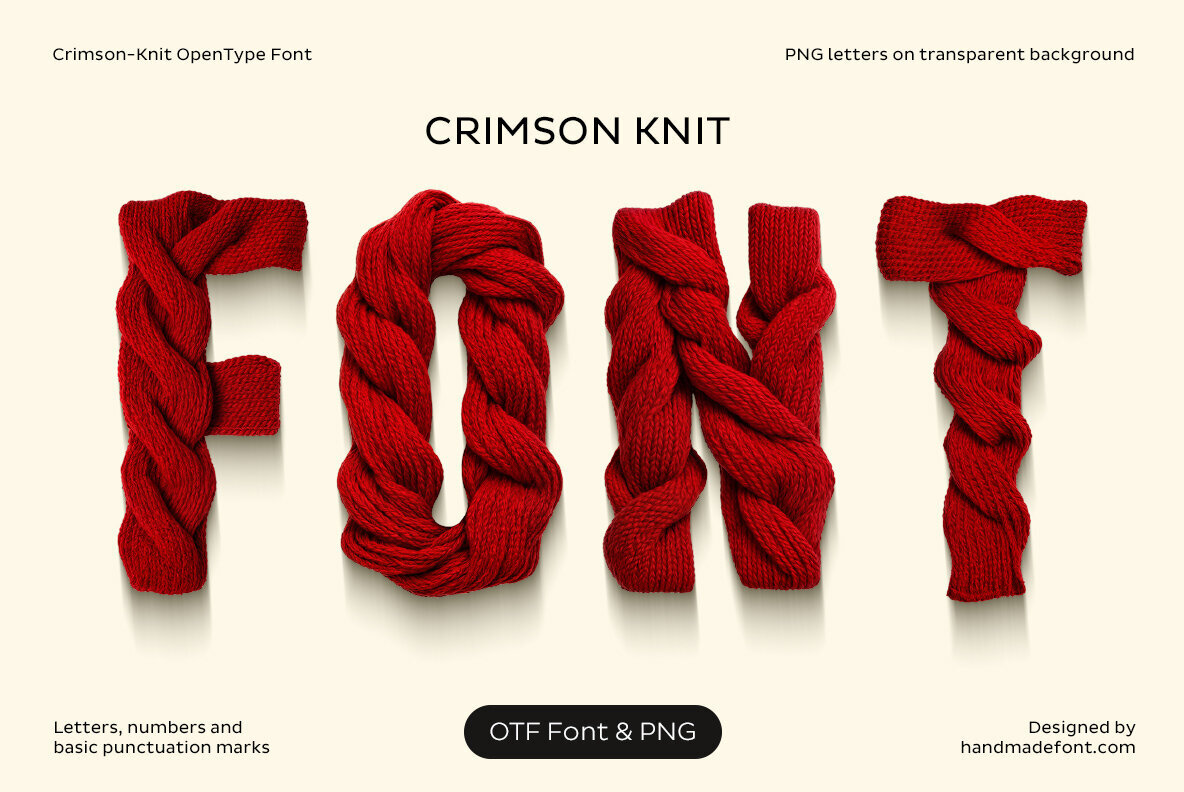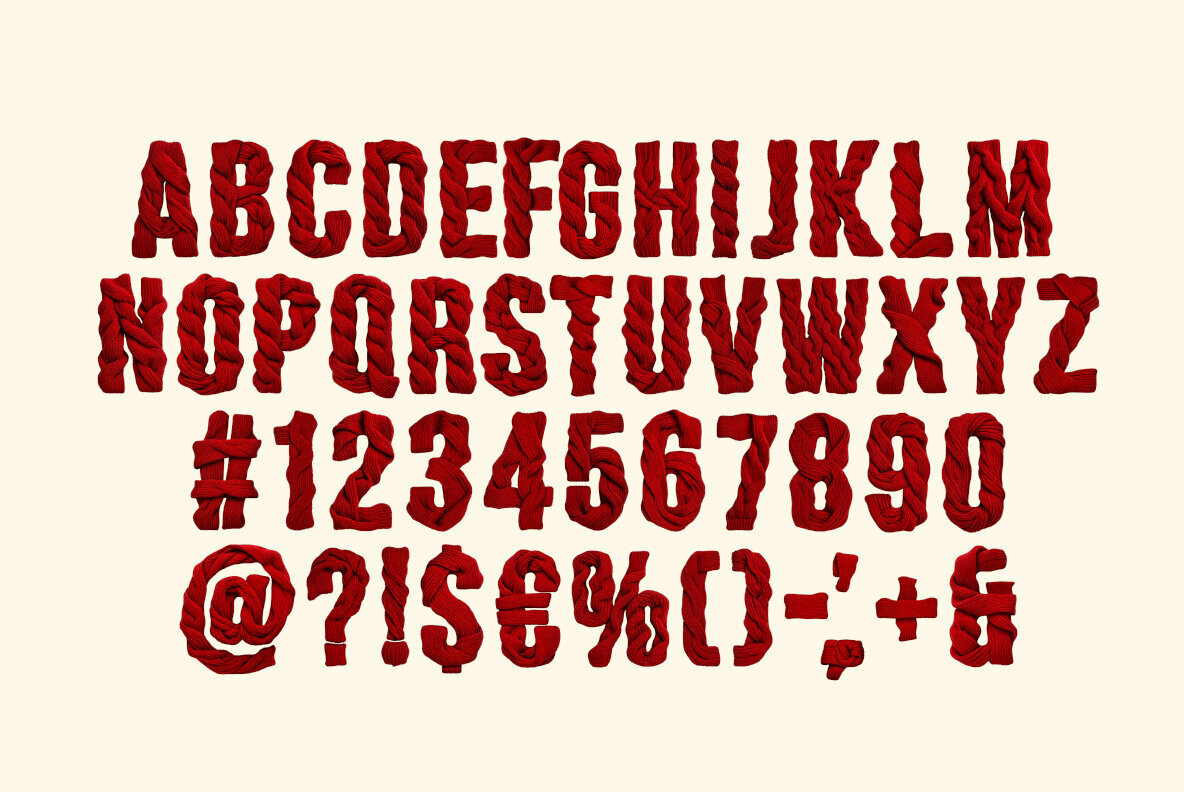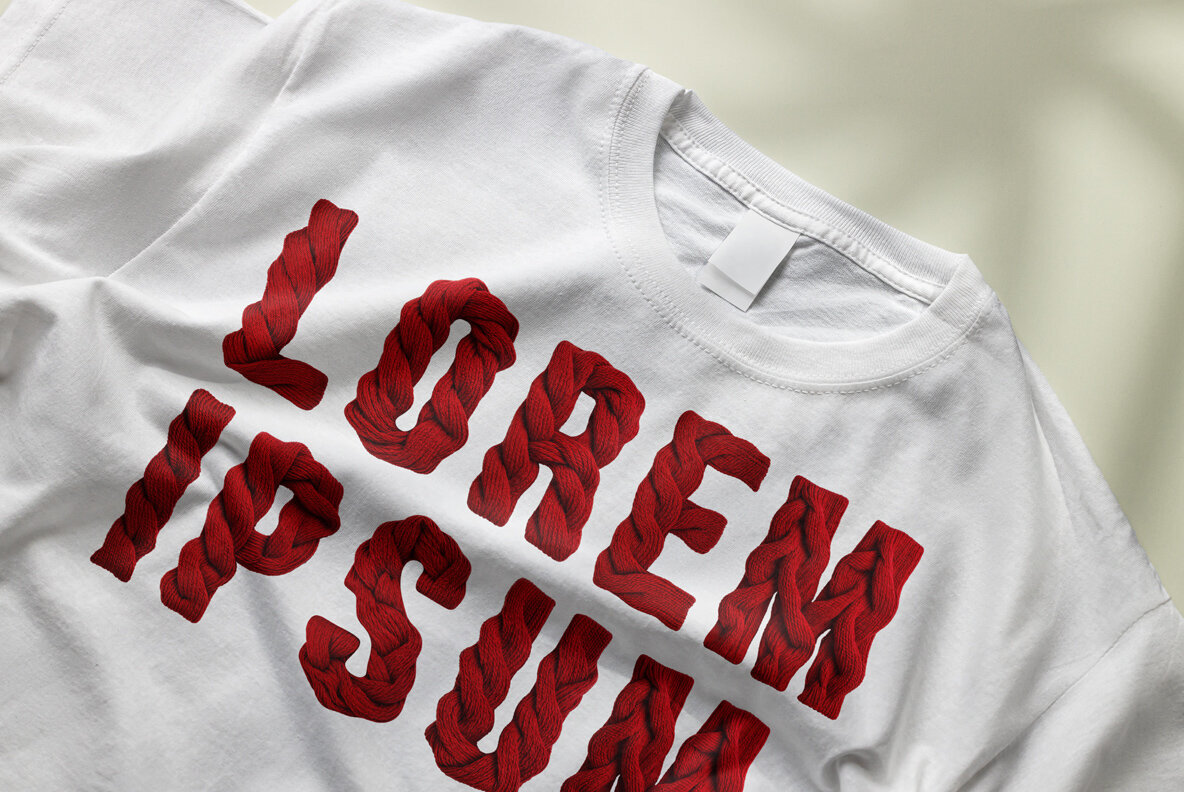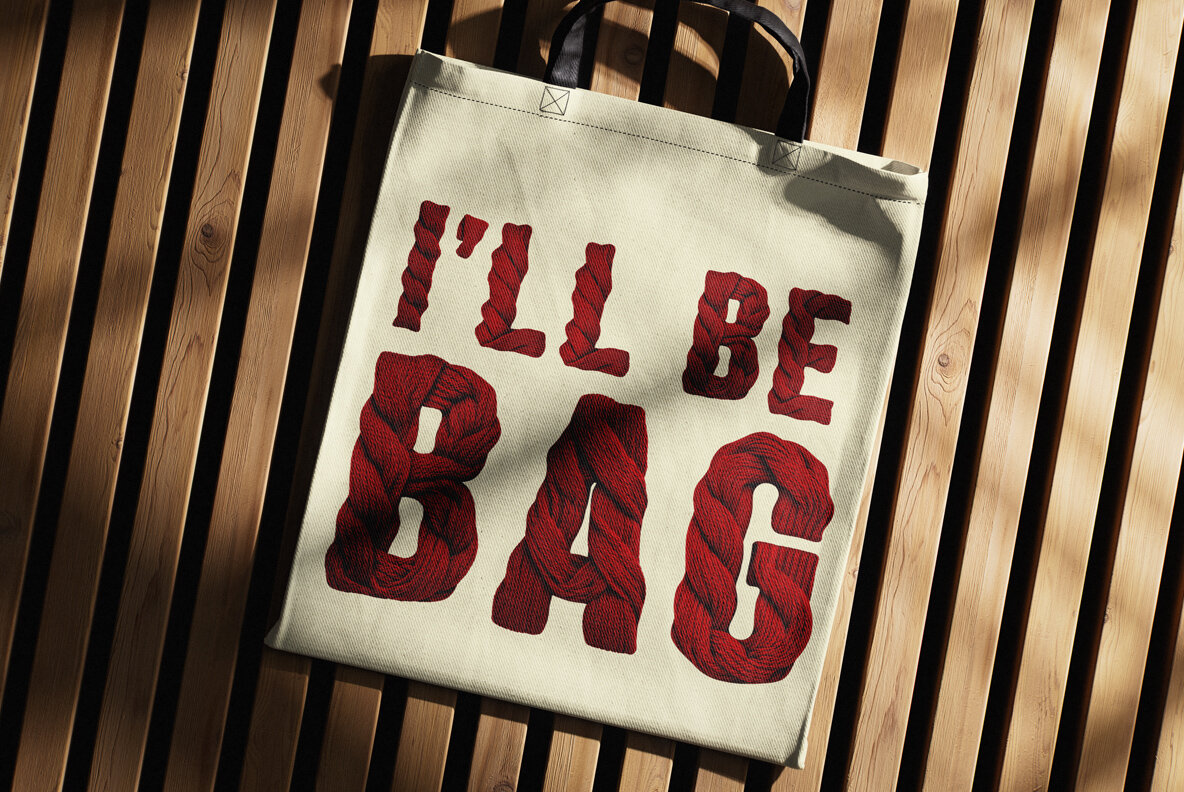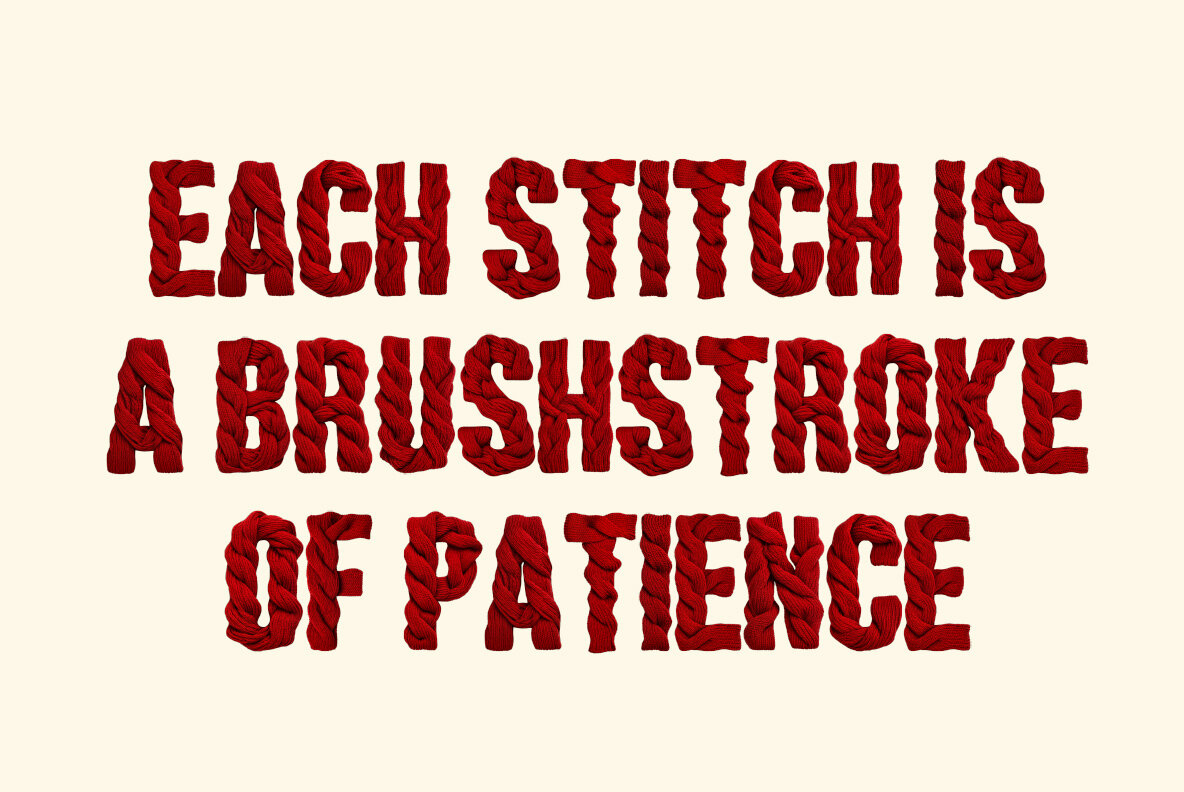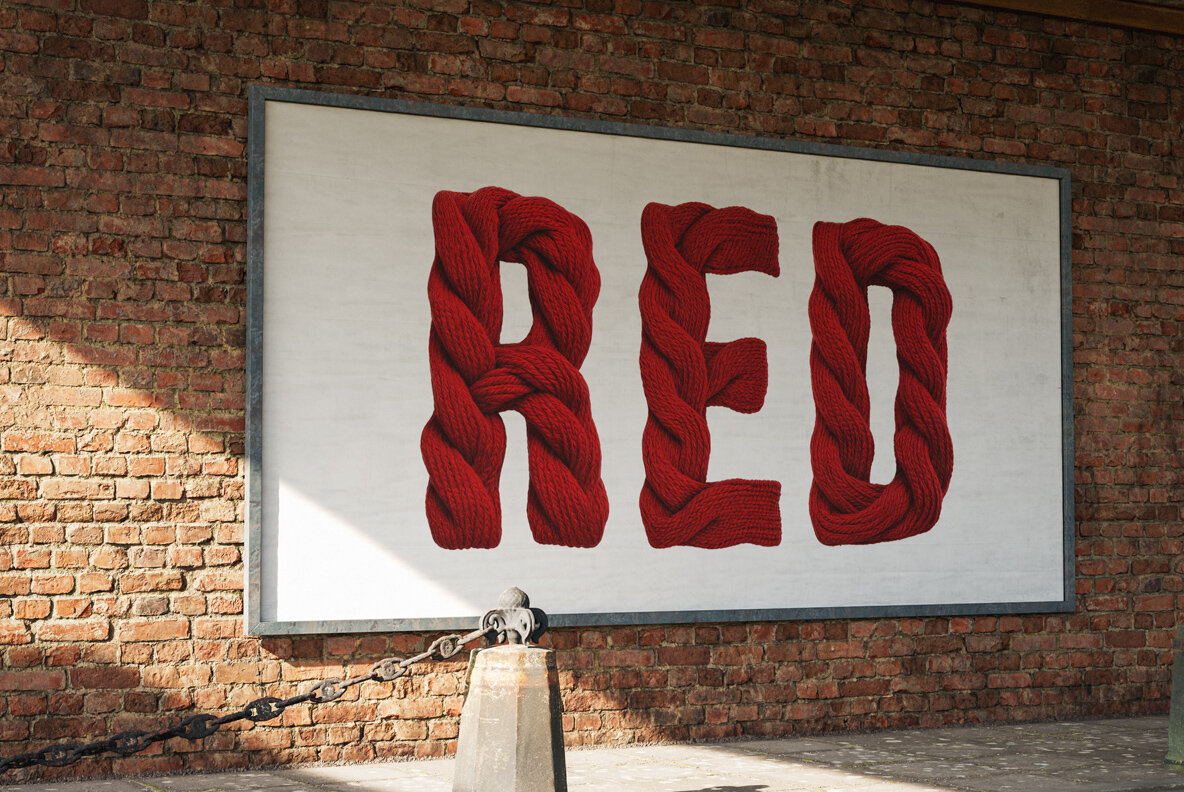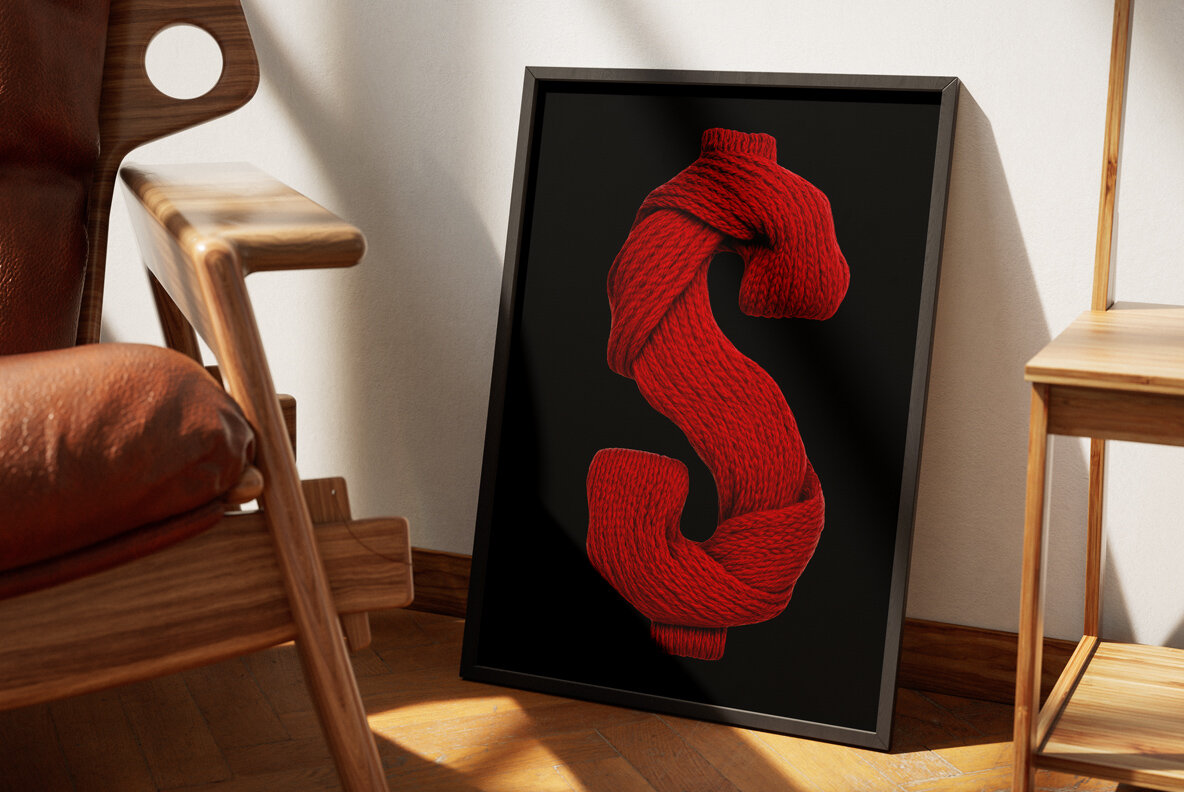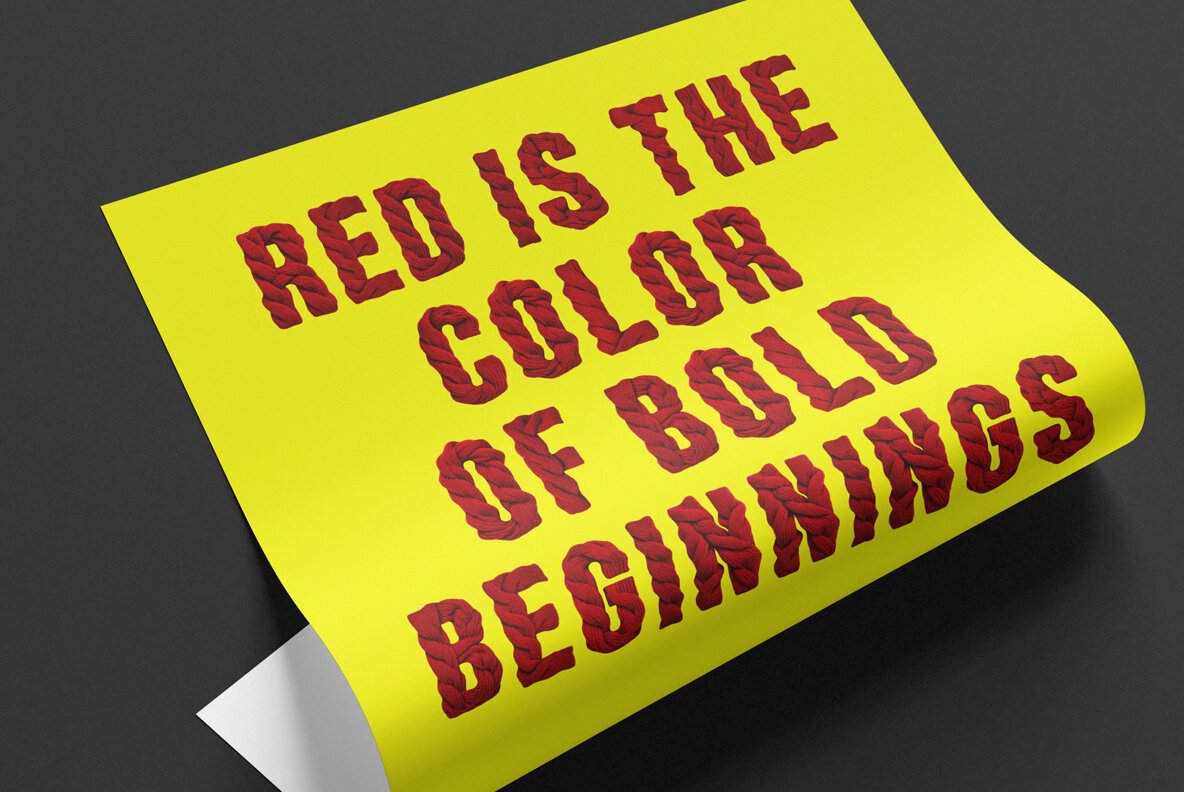
Crimson Knit Font seamlessly combines coziness and creativity, crafting each letter from thick, braided crimson yarn. This unique typeface evokes the soft embrace of a handmade scarf and the charm of a freshly knitted sweater, adding a warm, tactile feel to your designs. Perfect for holiday projects, craft businesses, or any design aiming for warmth and personality, Crimson Knit is more than just a typeface—it’s a visual hug, weaving creativity into every word. Let your designs exude the inviting essence of a cup of hot cocoa.Crimson Knit Font